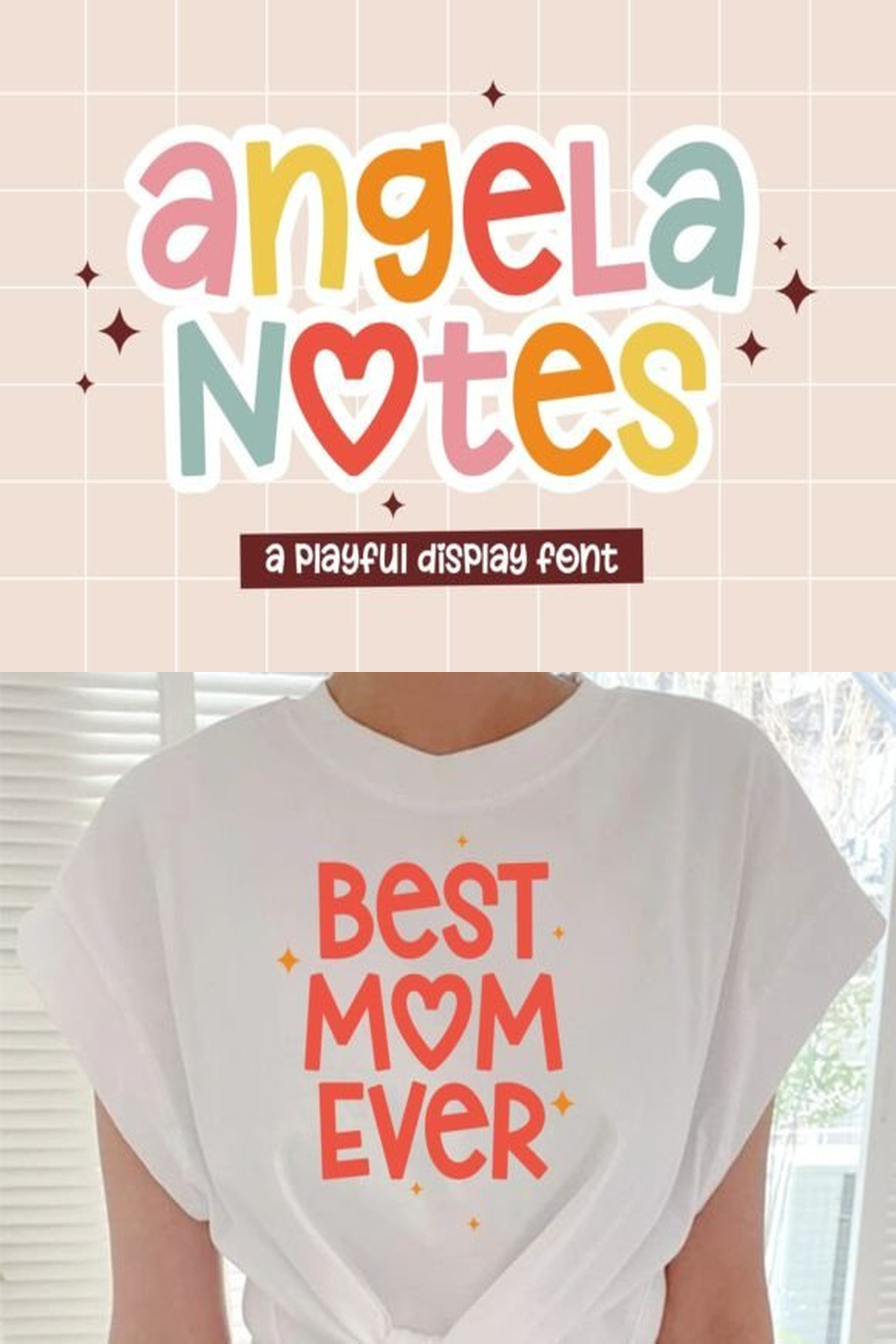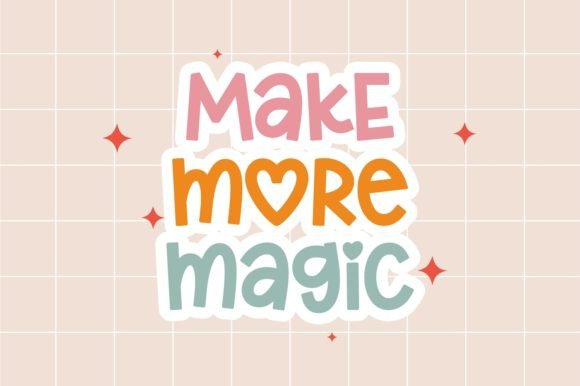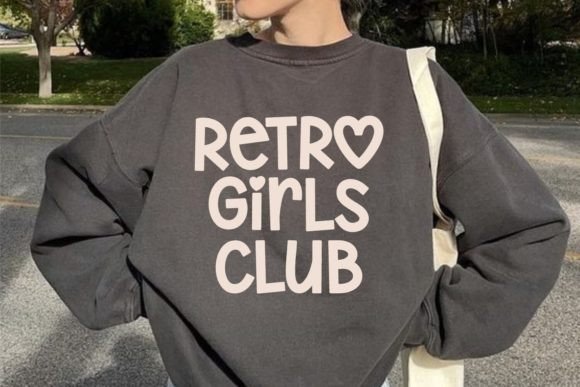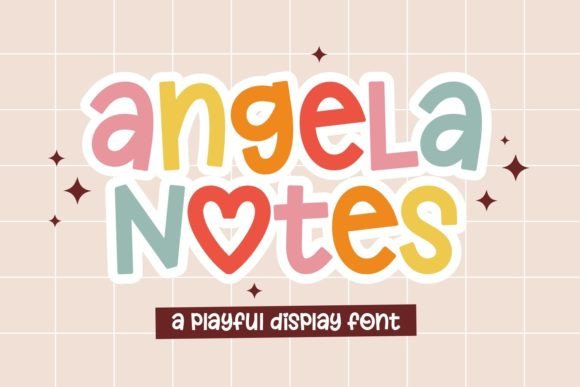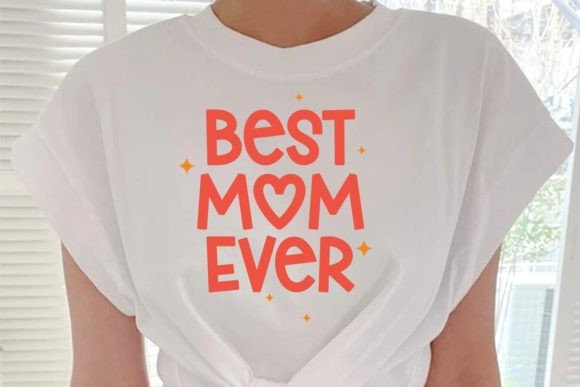
Angela Notes Font: A Cute Display Font for Cricut & Summer Designs
About the Angela Notes Font
Step up your design game with Angela Notes Font, a font that exudes confidence and style. Create your designs with a touch of whimsy using the playful Angela Notes display font. Ideal for injecting a fun, captivating, and delightful vibe into your projects, this font is the perfect complement to school themes, birthday invitations, and summer aesthetics. It’s a versatile choice for a wide range of personalized items like holiday greetings, stylish t-shirt designs, unique crafting projects, charming stickers, and sublimation applications. With Angela Notes, there are endless possibilities to create and inspire!
Angela Notes Font Usage Examples